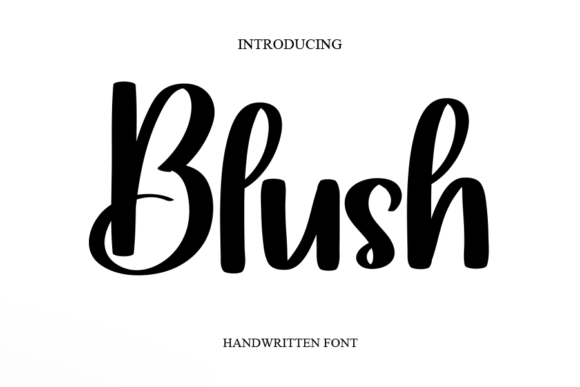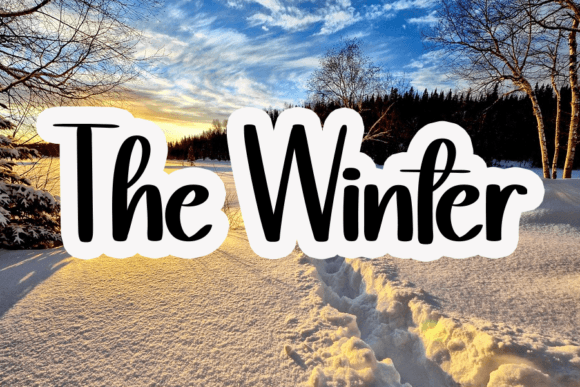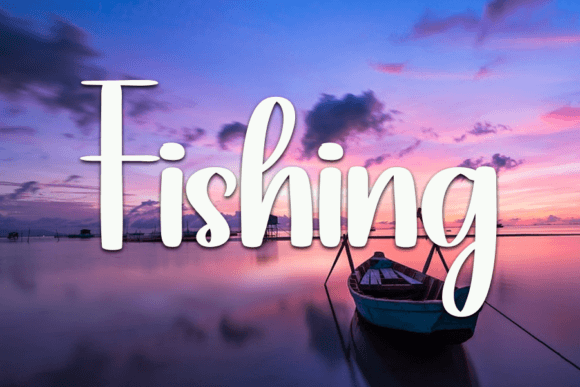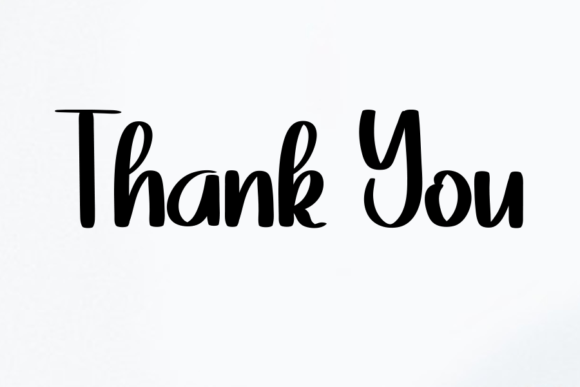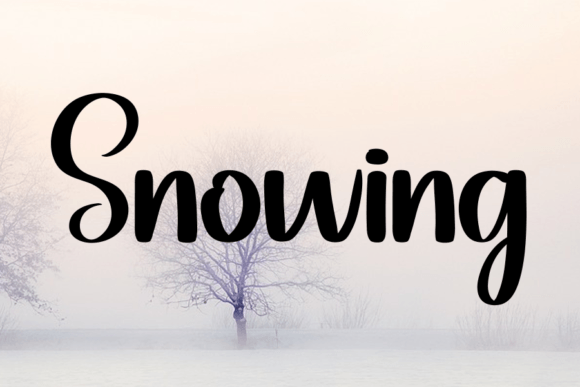
lush: A Sweet Handwritten Font That Brings Warmth to Your Designs
If you’re looking for a sweet handwritten font that brings elegance, warmth, and personality to your creative projects, Blush is the perfect choice. With soft curves and playful letters that dance along the baseline, this font instantly adds a cozy vibe to anything you design.
Whether you’re creating wedding invitations, social media posts, or digital prints, Blush makes your content feel more personal and heartfelt.
Handcrafted for Heartfelt Design
What makes Blush truly stand out is the natural, hand-lettered flow of each character. The slightly bouncing baseline creates movement and joy—just like real handwriting. This gives your text a human touch and elevates the emotional connection with your audience.
Blush is perfect for:
Greeting cards and love notes
Personalized branding or packaging
Baby shower and wedding invitations
Wall art, posters, and printable quotes
Journals, planners, and DIY projects
Social media graphics and banners
Because of its friendly tone and legibility, it’s ideal for both casual and elegant uses.
Features That Make Blush Special
Aside from its visual appeal, Blush is crafted with designers in mind. It offers versatility and functionality, making it easy to incorporate into various applications.
Here’s what you’ll love about this sweet handwritten font:
Beautiful hand-drawn letters with dancing strokes
Smooth curves and clean baseline rhythm
So whether you’re just starting or you’re a seasoned designer, Blush will support your vision with ease.
Use It Where It Matters Most
Fonts play a powerful role in communication. With Blush, your message will feel welcoming and sincere. That’s why this font is often used in:
Boutique product packaging
Feminine branding and lifestyle logos
Elegant event announcements
Etsy store headers and preview images
Printable gift tags and label designs
With so many creative applications, it’s no surprise that Blush is a go-to font for those who value detail and warmth.
In a world full of digital noise, Blush stands out with its handcrafted elegance. If you want your designs to feel personal, inviting, and visually delightful, this sweet handwritten font is a must-have in your collection.